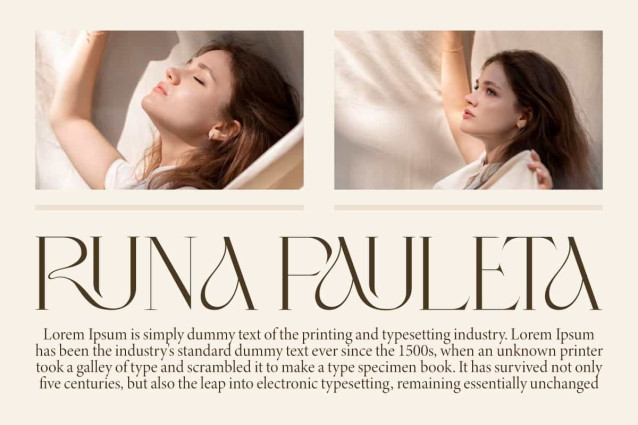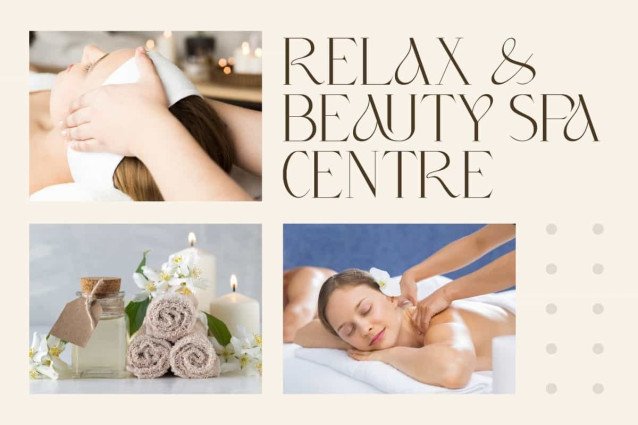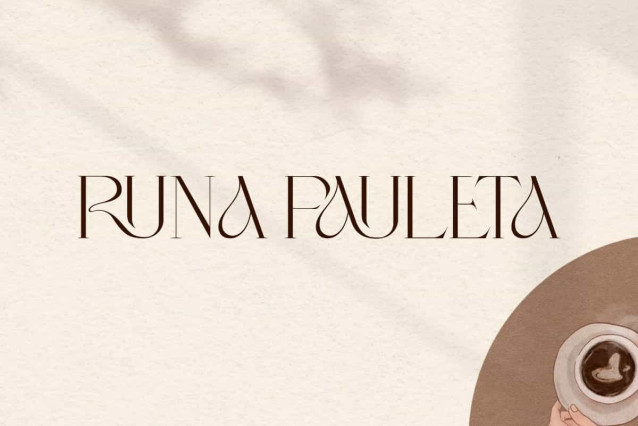
Runa Pauleta Font
Runa Pauleta Font is a serif display font that emphasizes elegance and a distinctive artistic touch. With its slender letter characters and subtle decorative details, this font gives a luxurious and modern impression. This font will be perfect for any projects, can be used for signage, cover, advertising, brand image, custom design, invitation, label, layout design, quotes, stationery, template design, website, and more!
Runa Pauleta Font includes full set of Uppercase and Lowercase Basic Characters, Numerals, Punctuation, and Symbol. This font has curved line elements on some letters adding visual appeal, making it a perfect choice for designs that want to appear unique and classy. Making it a perfect choice for a variety of fields, such as fashion, beauty product, accessories and jewelry, florist, event or wedding organizer, furniture, real estate, spa salon, etc.